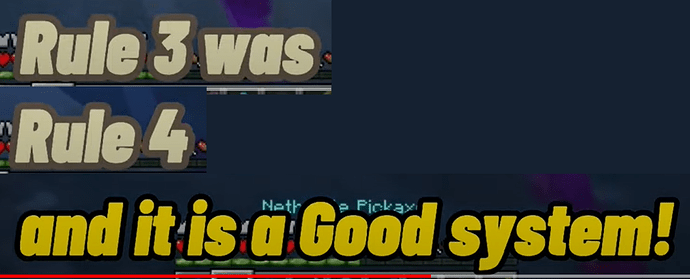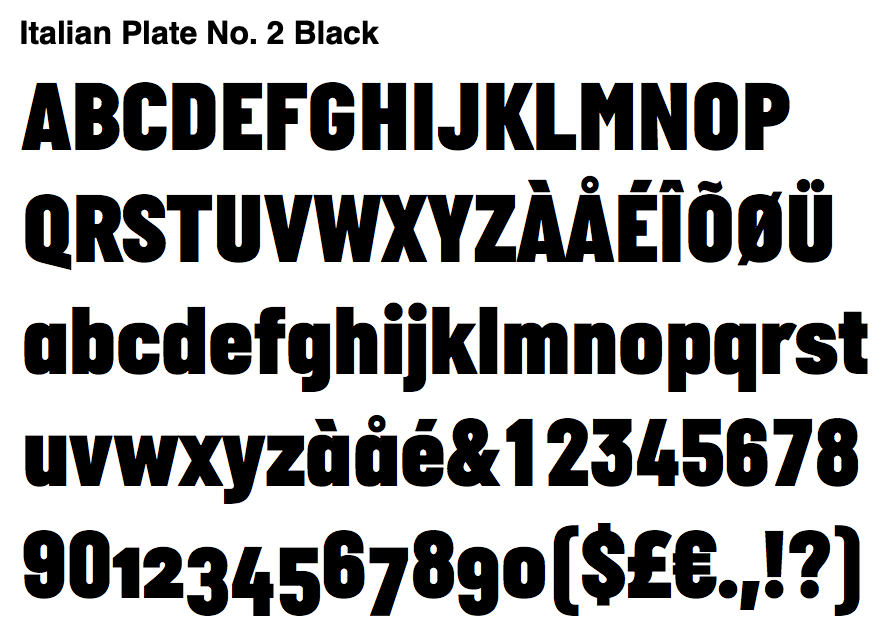
Matcherator didn’t return anything close. This font looks familiar: I think I have seen it before, and it resembles Cooper Hewitt to some degree.
Looks like Italian Plate No. 2 by Playtype.